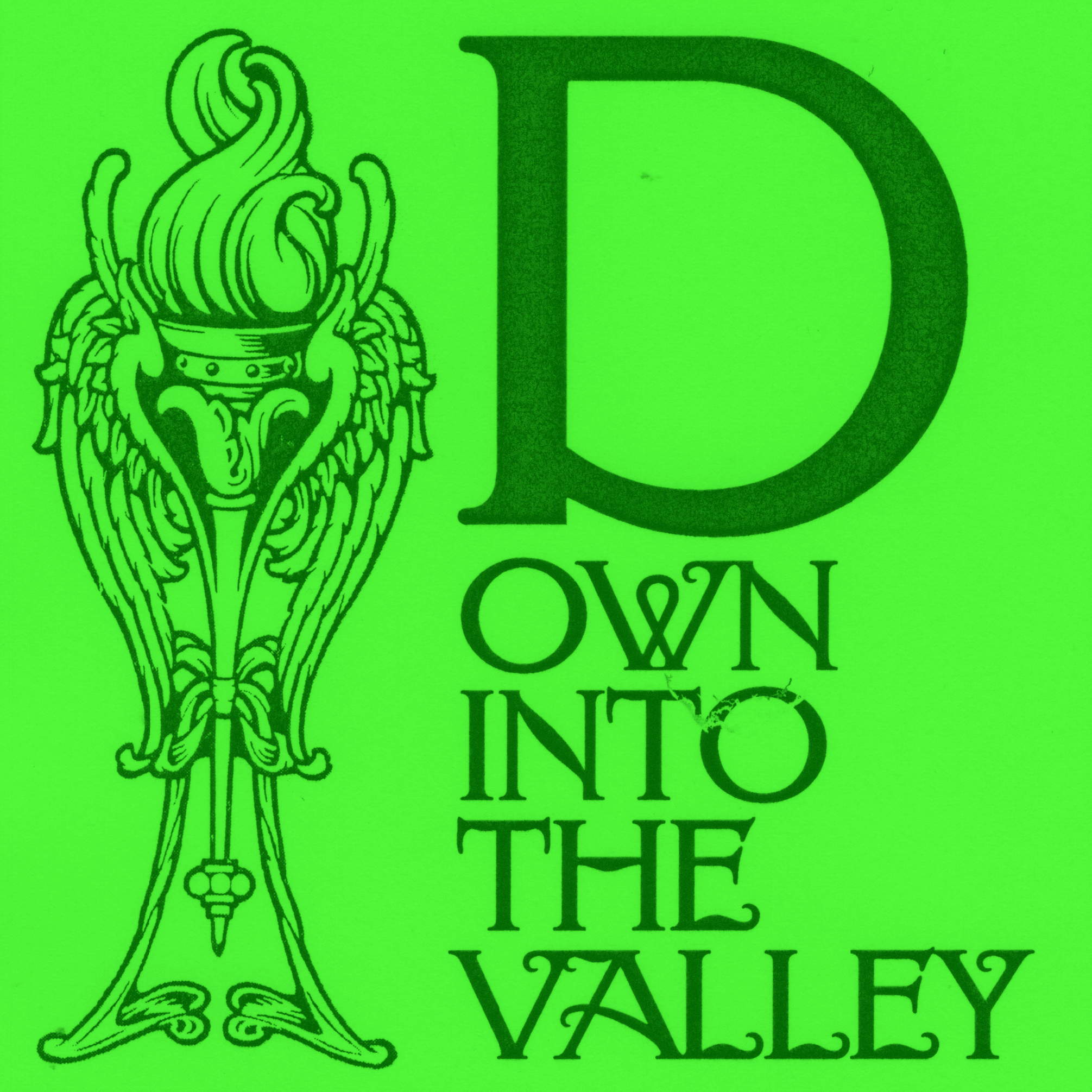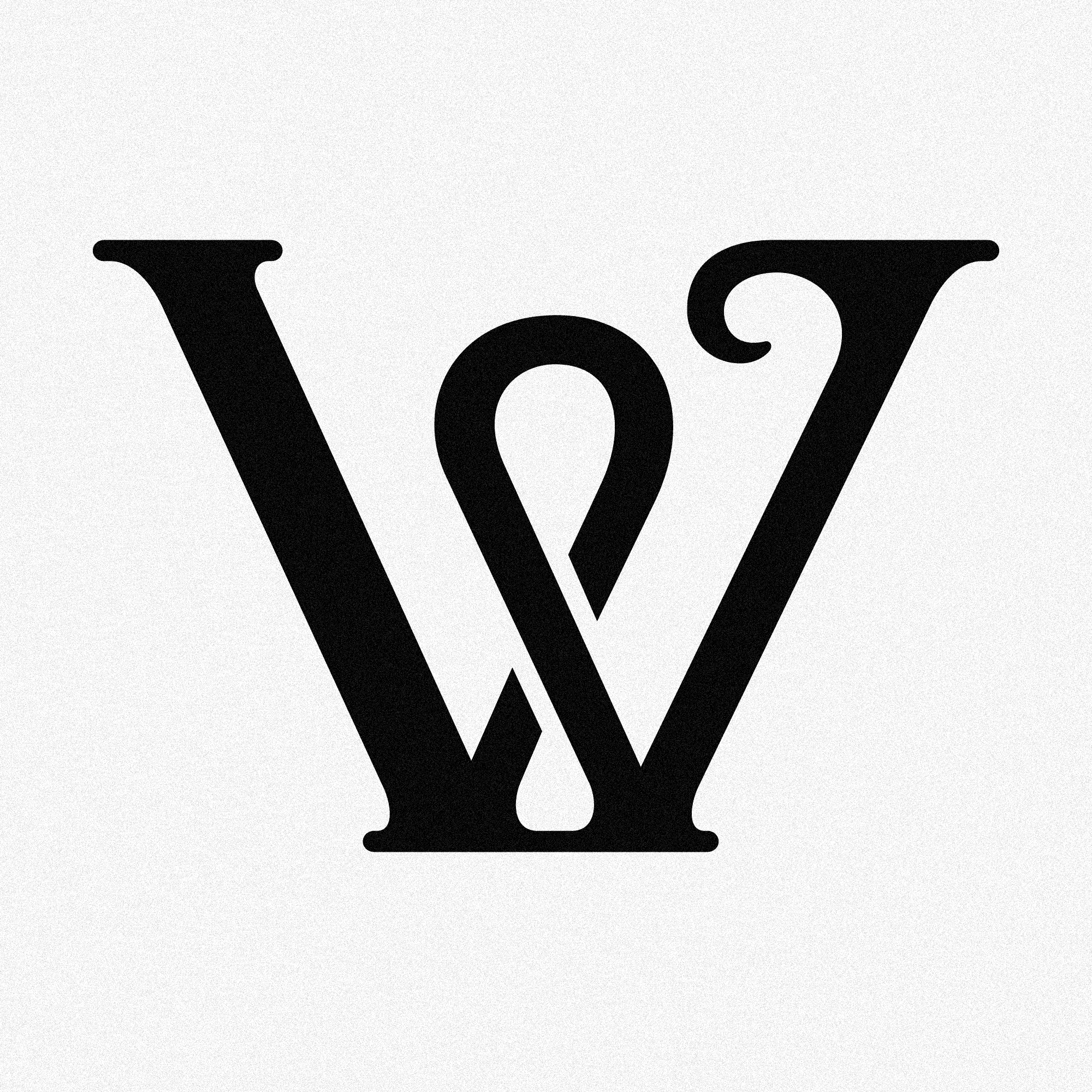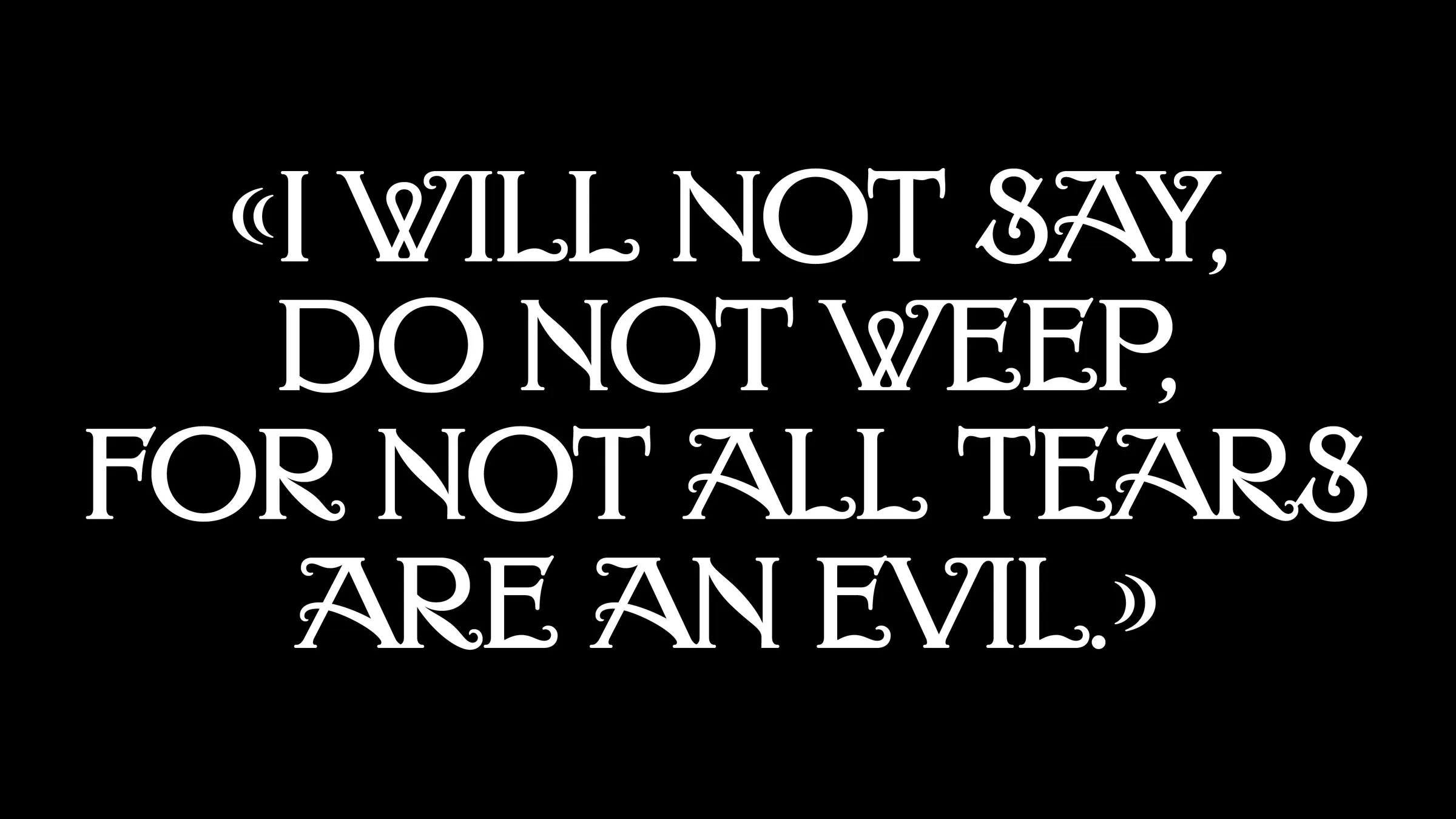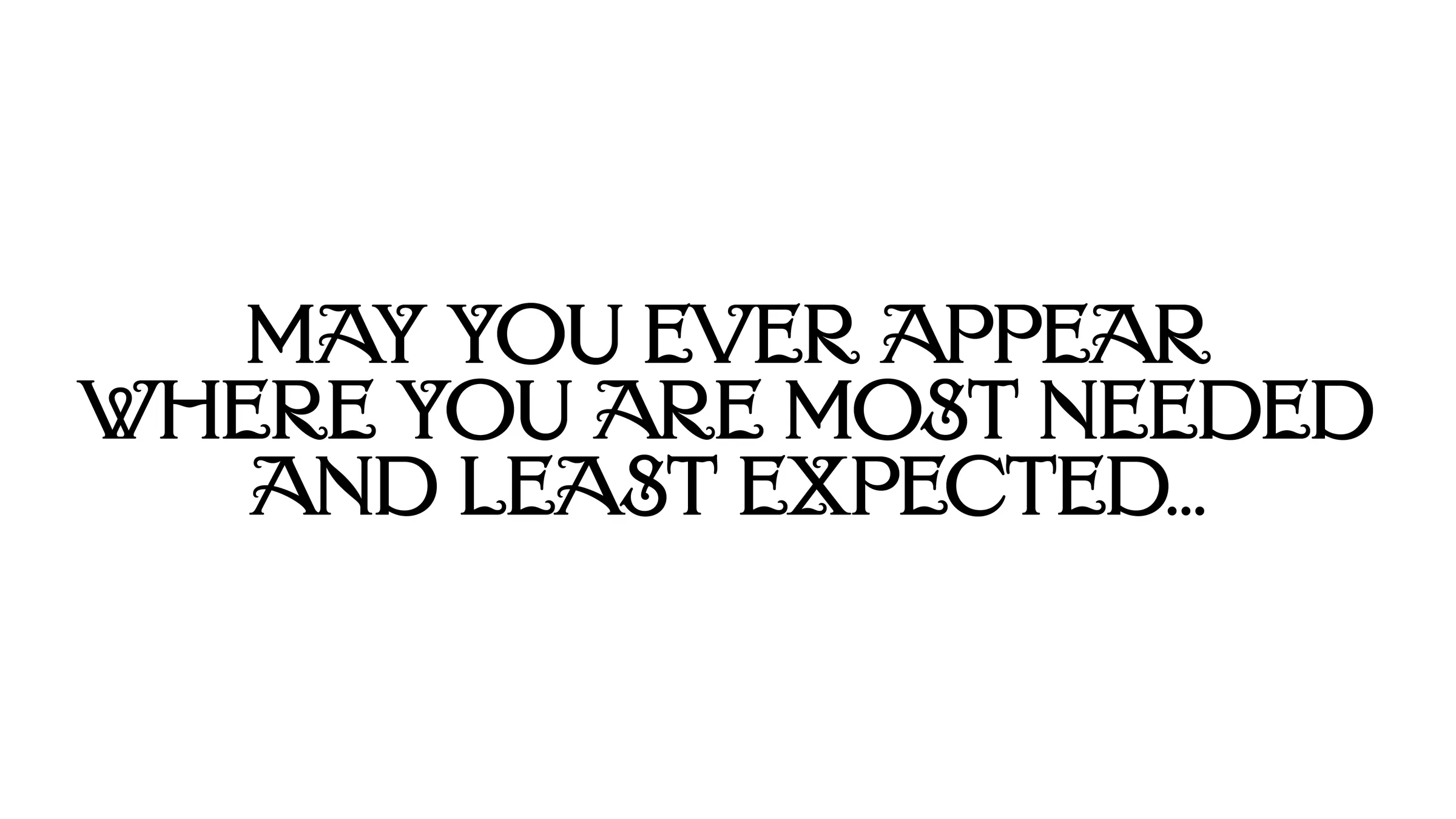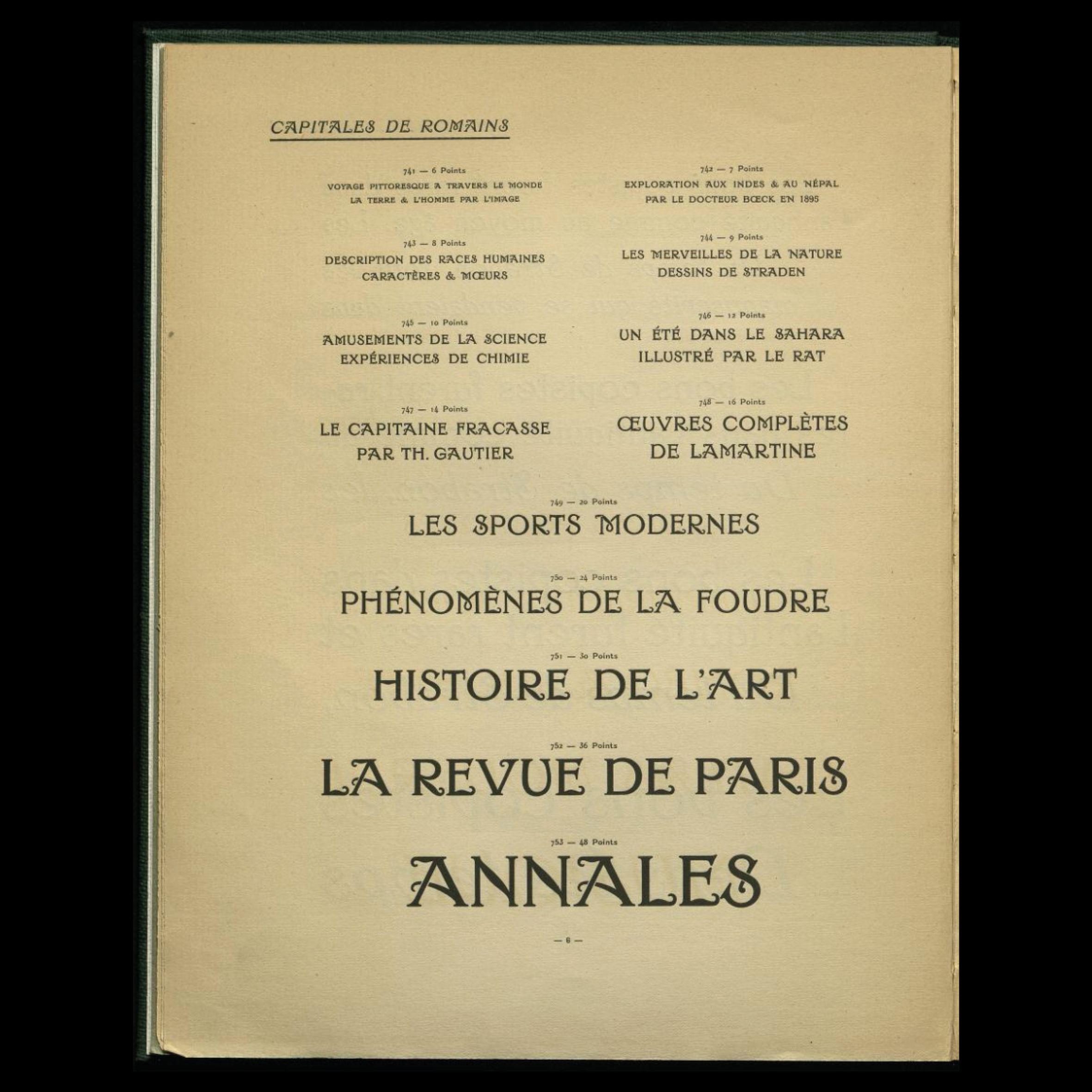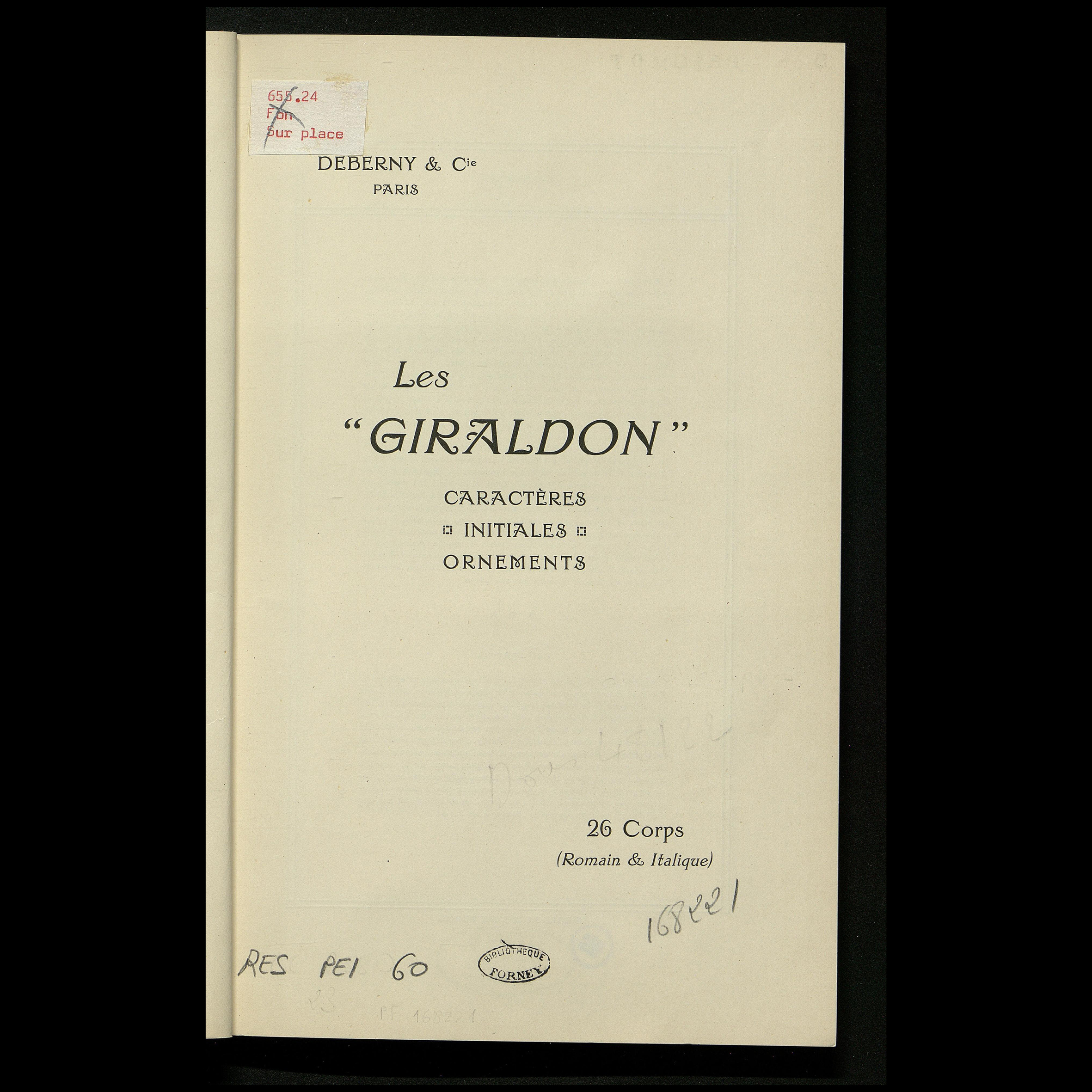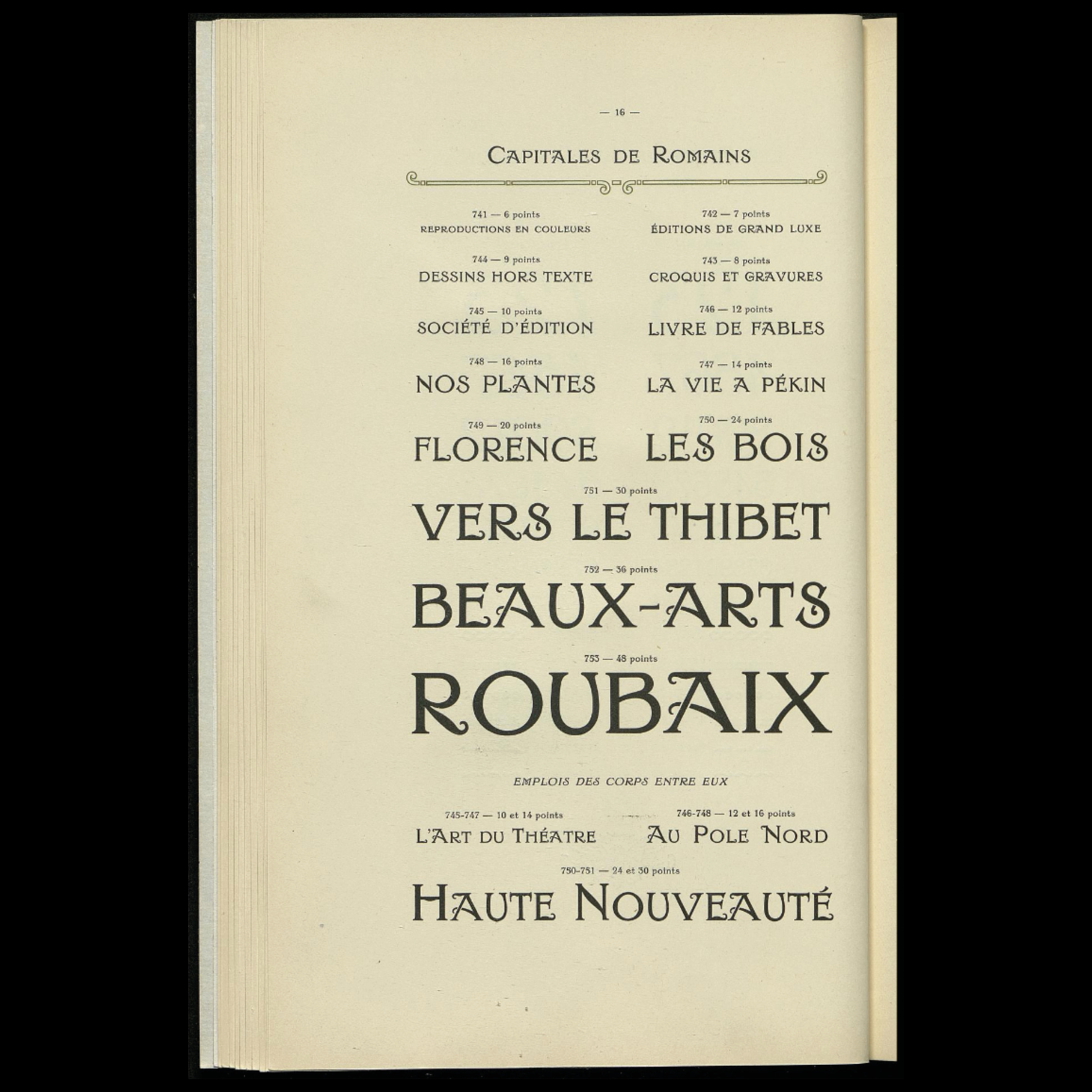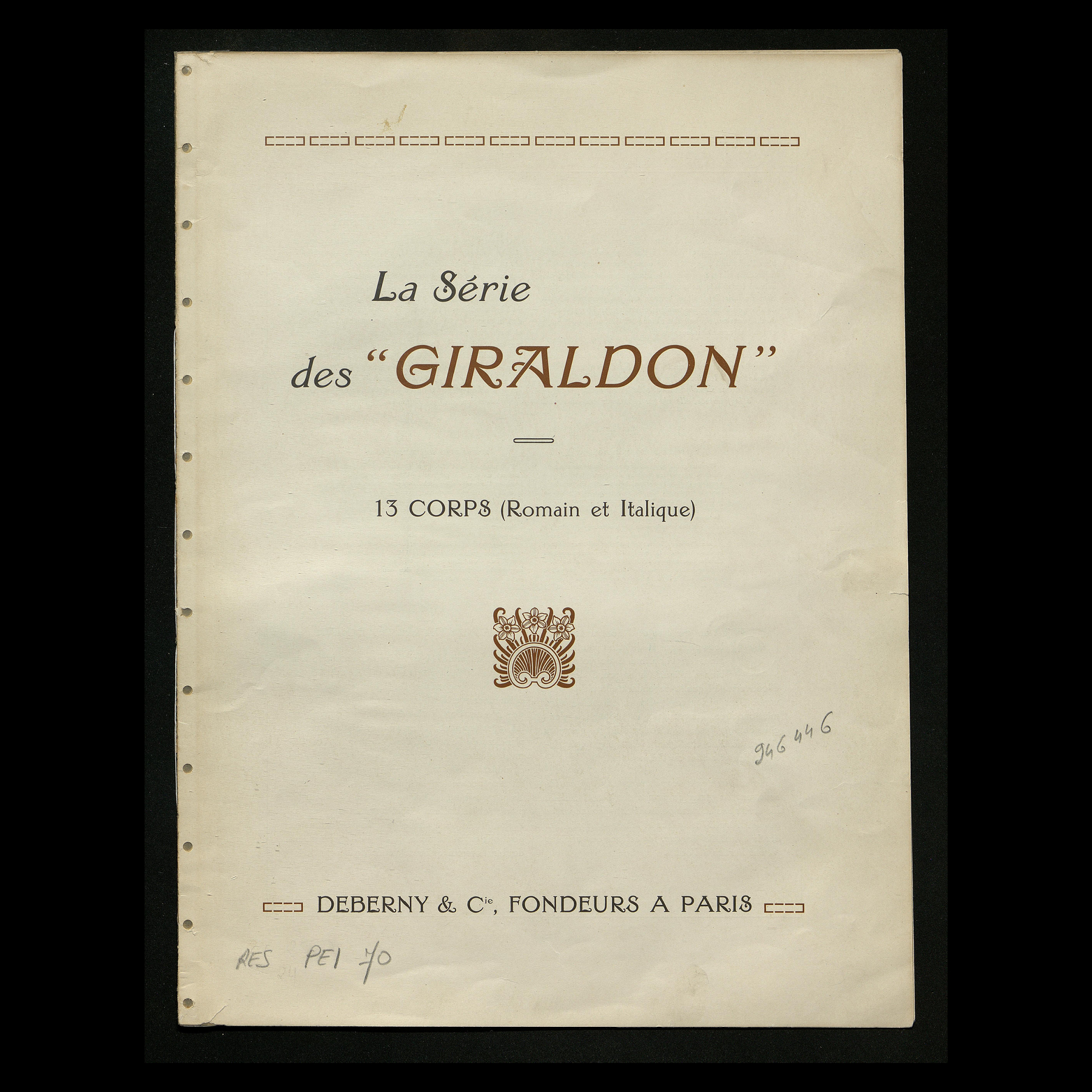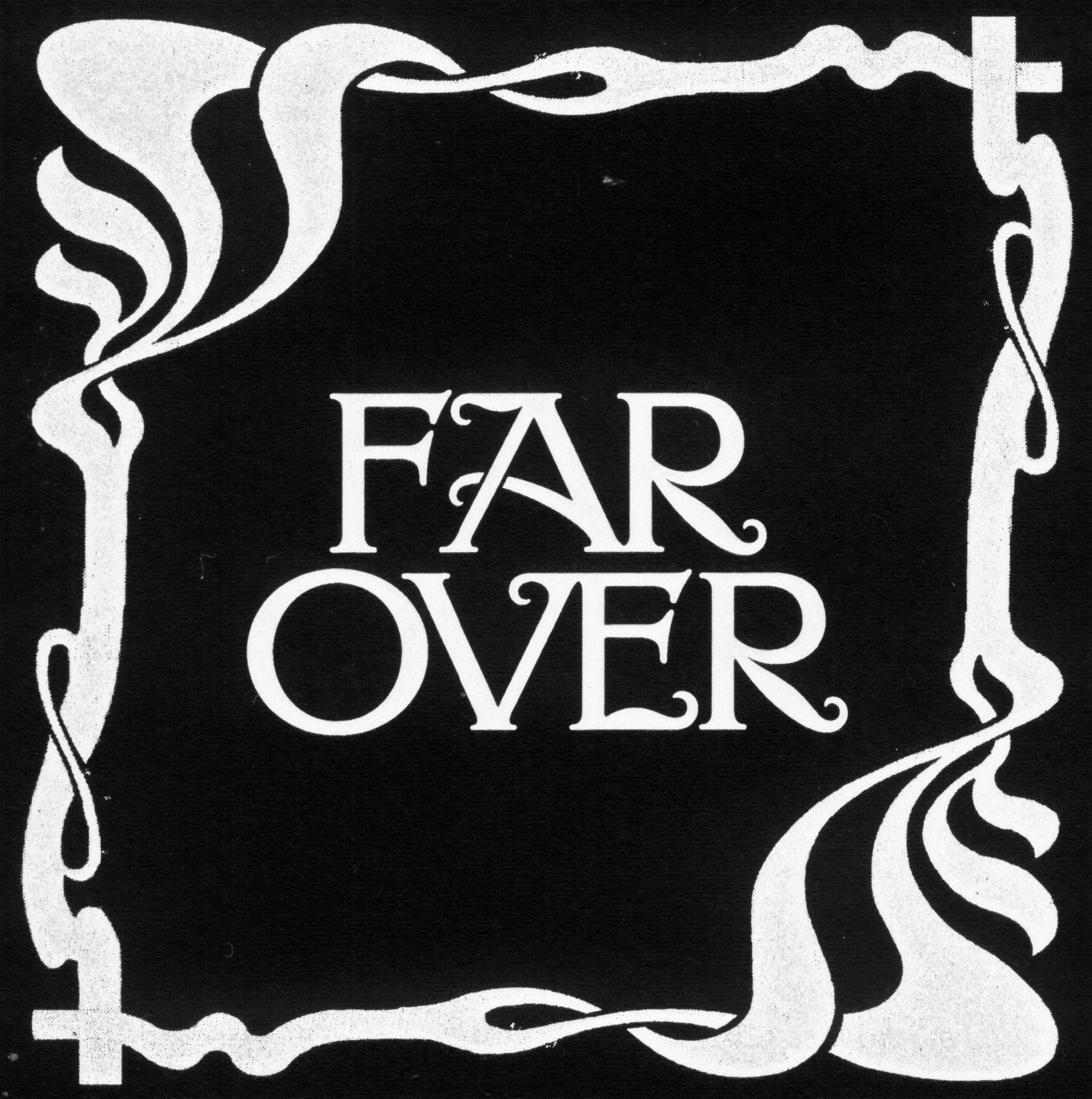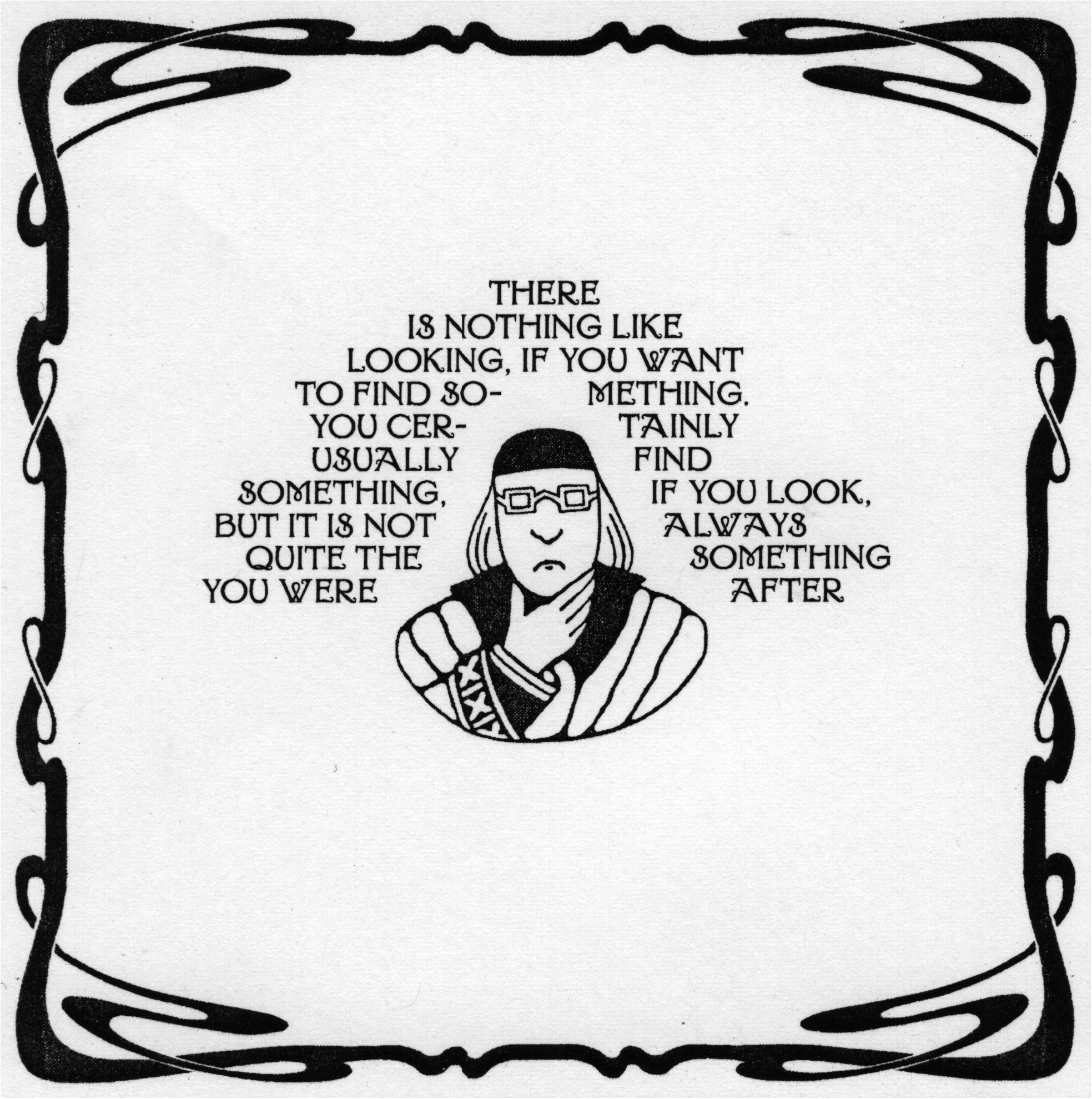
Rigaldon is a contemporary version of Giraldon, a well-known French typeface from the early 20th century distributed by the famous Deberny & cie foundry. The typeface bears the name of its creator, who was responsible for the initial drawings, which were then transformed into punches and movable typefaces by the foundry. Adolphe Giraldon was a well-known French illustrator and decorator who was part of the Art Nouveau period at the turn of the century, and whose work mainly appeared on book covers or as illustrations for books such as "Les Nuits", by Alfred de Musset, Paris, J. Meynial, 1911. The typeface is obviously strongly influenced by the Art Nouveau aesthetic, highly ornamental, with organic forms that make it very distinctive and recognisable.Rigaldon was originally redesigned for a commissioned project, to be used as lettering in the reprinting of classic French novels. Rigaldon is therefore available only in capitals, which have been drawn as closely as possible to the basic drawings of the original typeface. Several ligatures, symbols and other glyphs have been added to suit contemporary digital use.